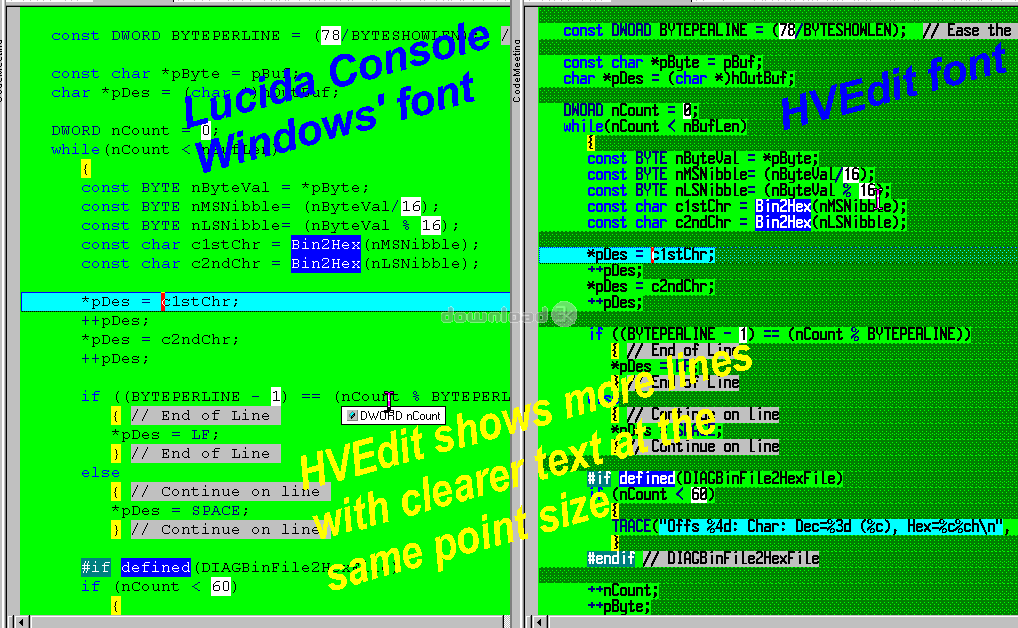
HVEdit - TrueType Text Editor Font 1.0
"Hi-Visibility Programmers Fonts."
The HVEdit suite is a set of Hi-Visibility monospaced TrueType fonts especially designed for use in Program IDEs and Editors like Visual Studio, Delphi, Codewright and Slickedit.It includes Normal, Wide, and Narrow widths and a Light version.
The fontface is based on ProCon's Hi-Visibility HVFont which produces much stronger character glyphs and more legible punctuation characters.